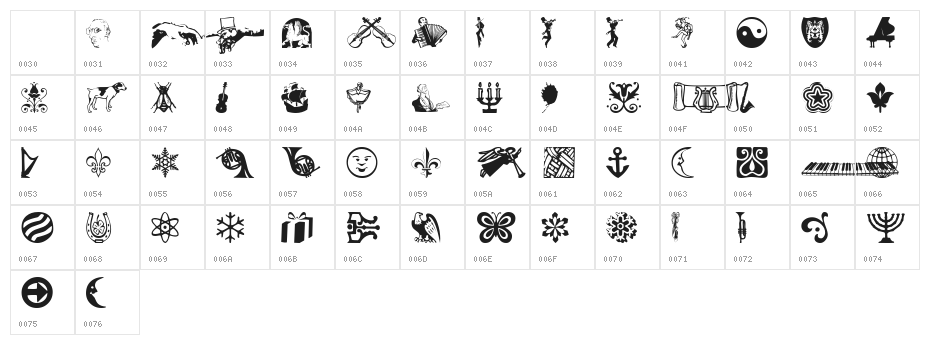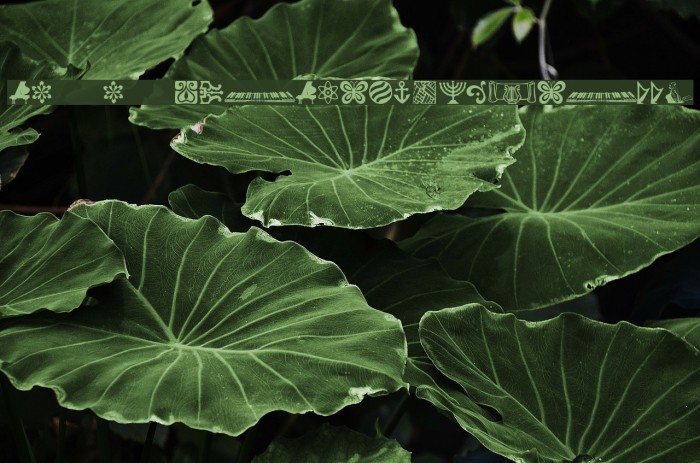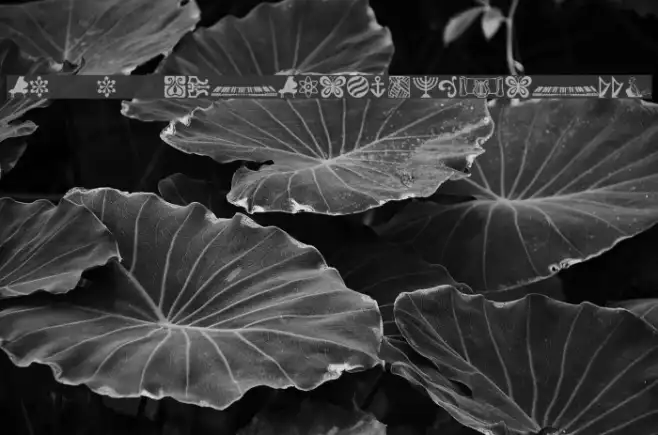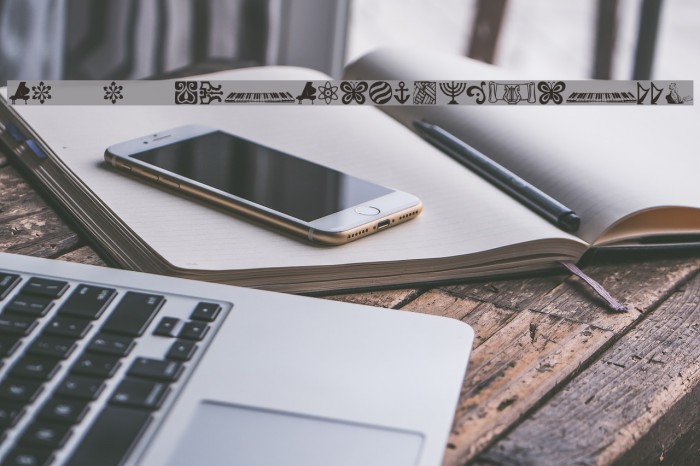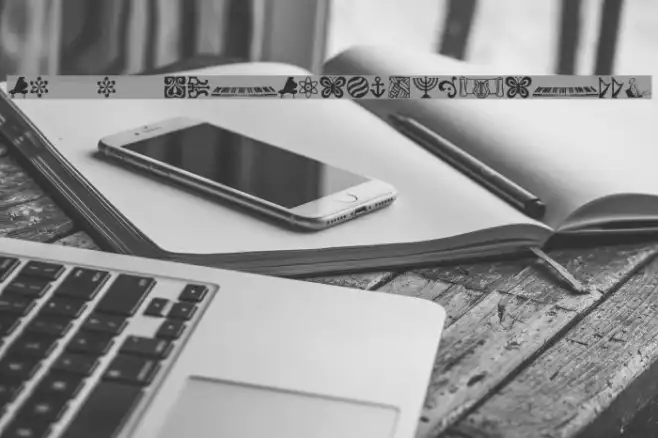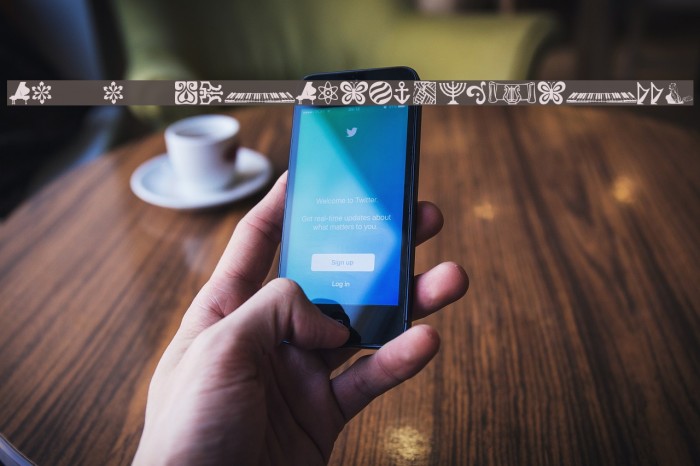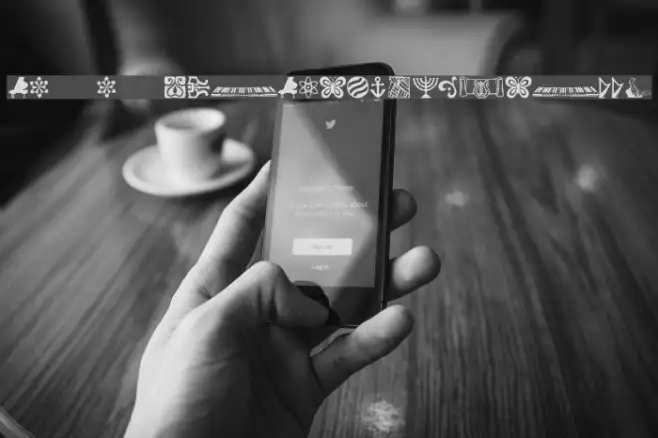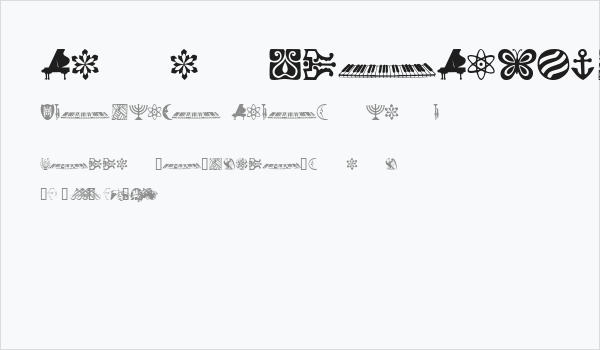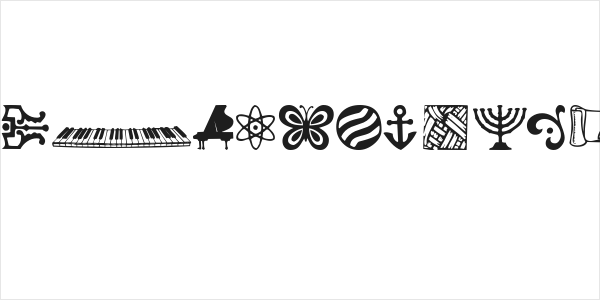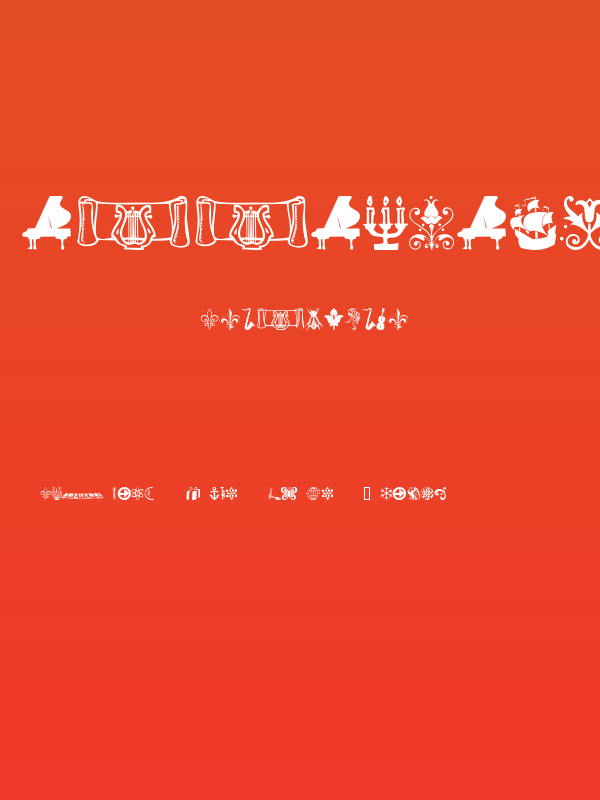
DoodleDingbatsOneSSK Font
DoodleDingbatsOneSSK Description
This collection features a diverse range of whimsical and artistic symbols, each with a unique and playful design. The elements include musical instruments, animals, celestial symbols, and various decorative motifs. The style is eclectic, combining elements of vintage and modern aesthetics, making it suitable for creative and artistic projects. The symbols are bold and detailed, offering a high level of intricacy that can add a distinctive touch to any design. The collection is versatile, allowing for a wide range of applications from invitations to branding materials.
| Use Case | Logos, Decorative elements, Artistic projects |
| Proposed Projects | Ideal for creative projects such as invitations, branding, posters, and artistic designs. |